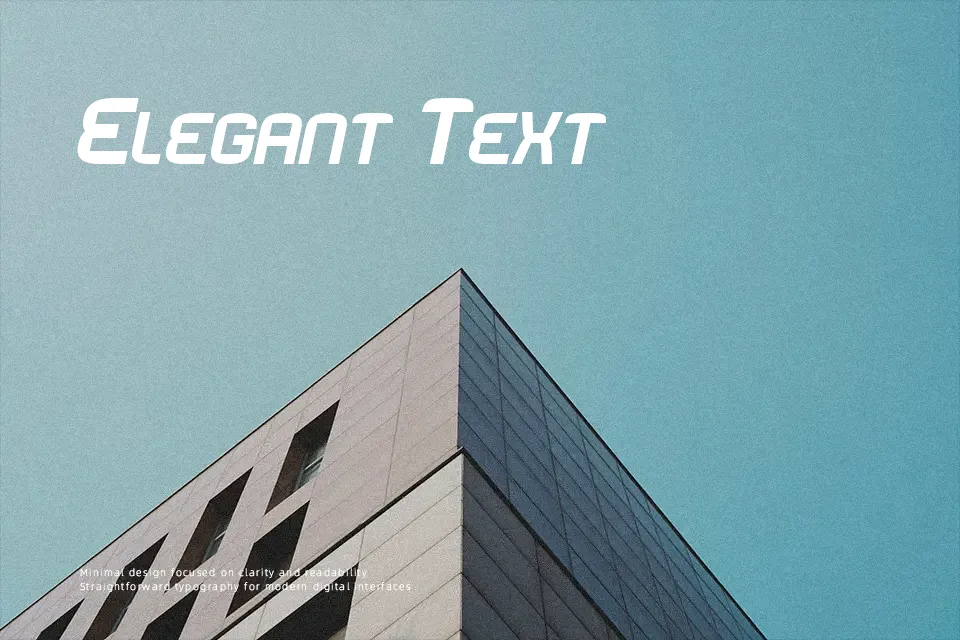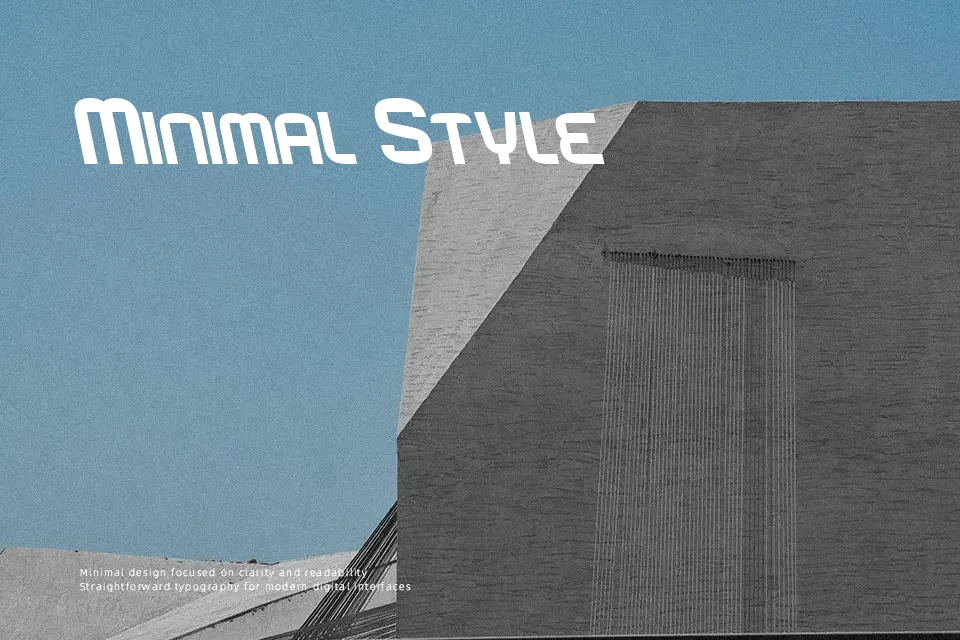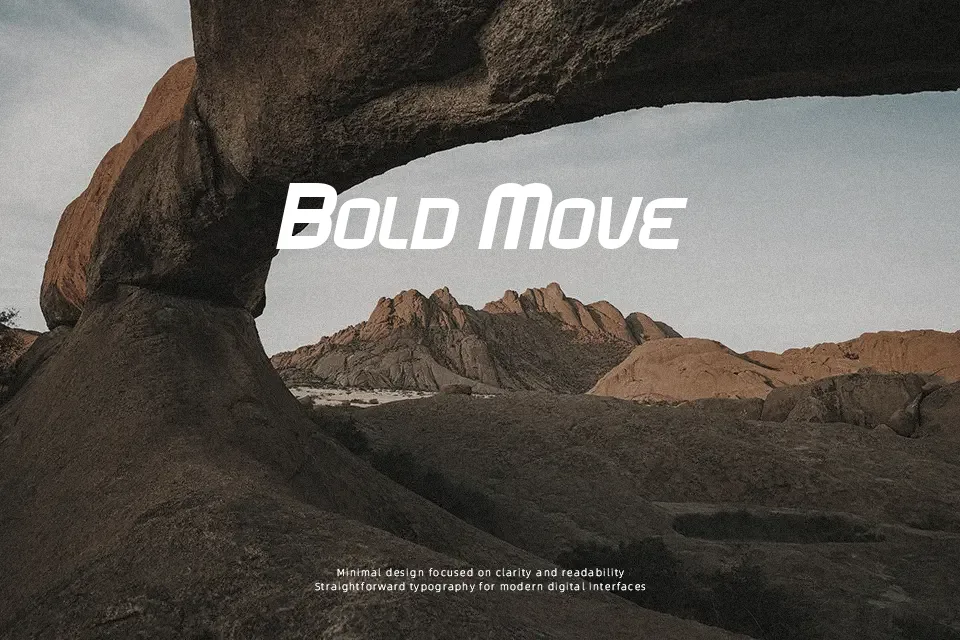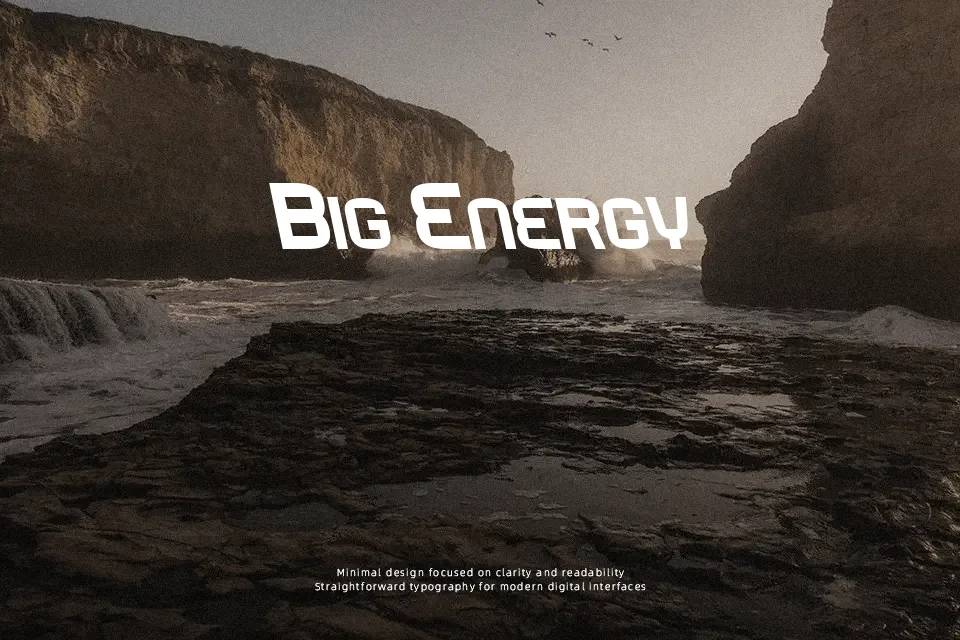
Rueck Font
Rueck Font presents a striking structural duality, combining smooth, rounded exterior curves with sharp, rectangular interior counters. The uniform stroke thickness and balanced proportions give the letterforms a highly engineered, geometric appearance. Because of its dense and blocky nature, the spacing remains relatively tight, which helps maintain clarity in larger headlines but reduces comfort during extended reading. This display typeface works exceptionally well for modern tech branding, bold product packaging, and futuristic event posters. However, its rigid internal angles and thick strokes can cause small text to lose clarity, making it less suitable for continuous paragraphs.
futuristic tech branding, striking event posters, modern tech packaging
long paragraph text, dense editorial layouts, small interface labels
Perfect for branding, headline, and packaging, with a bold and decorative style.